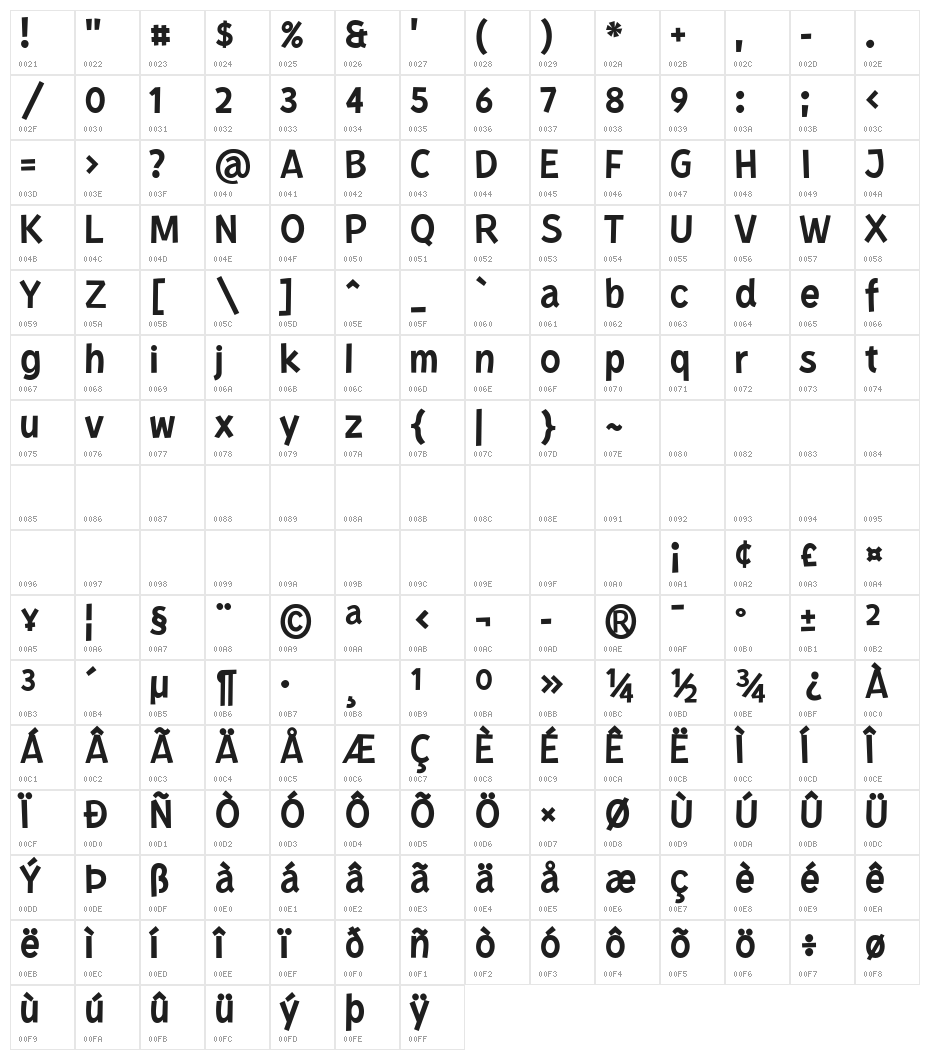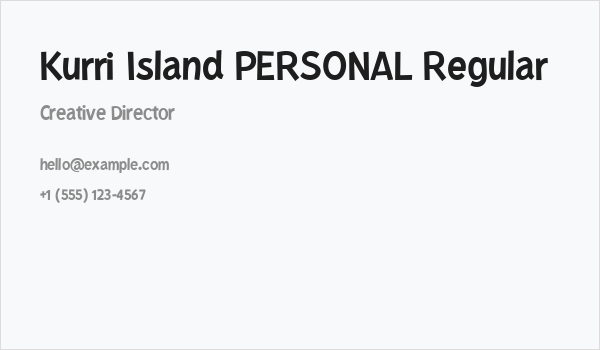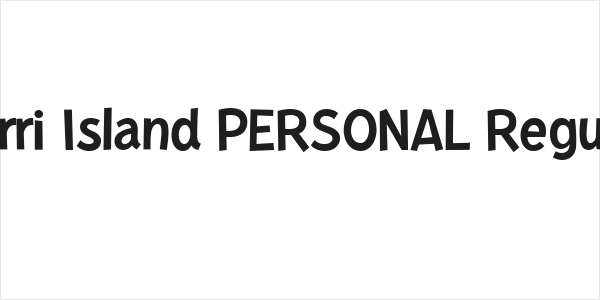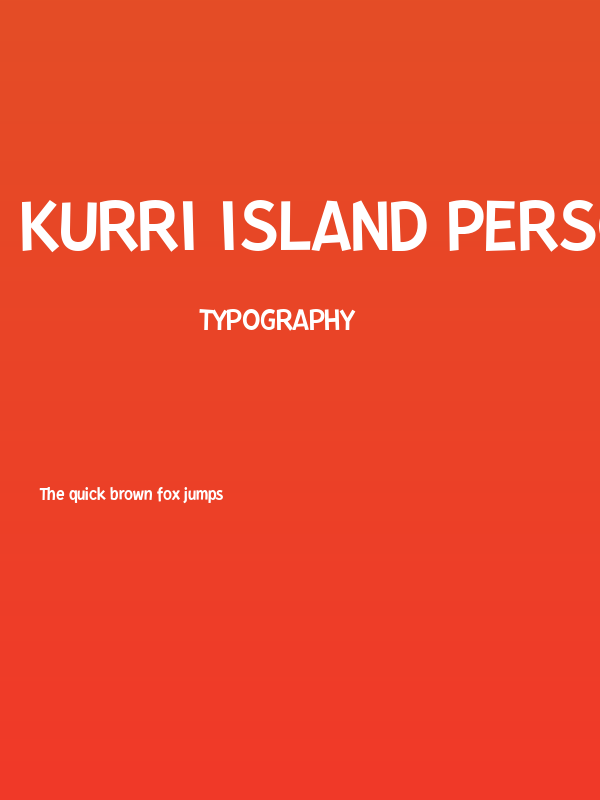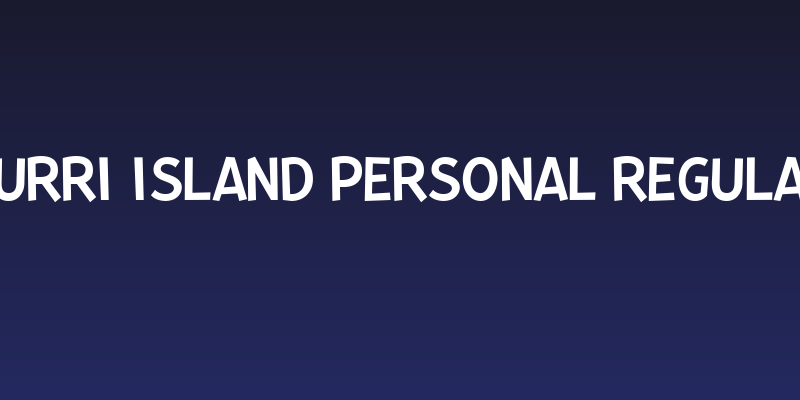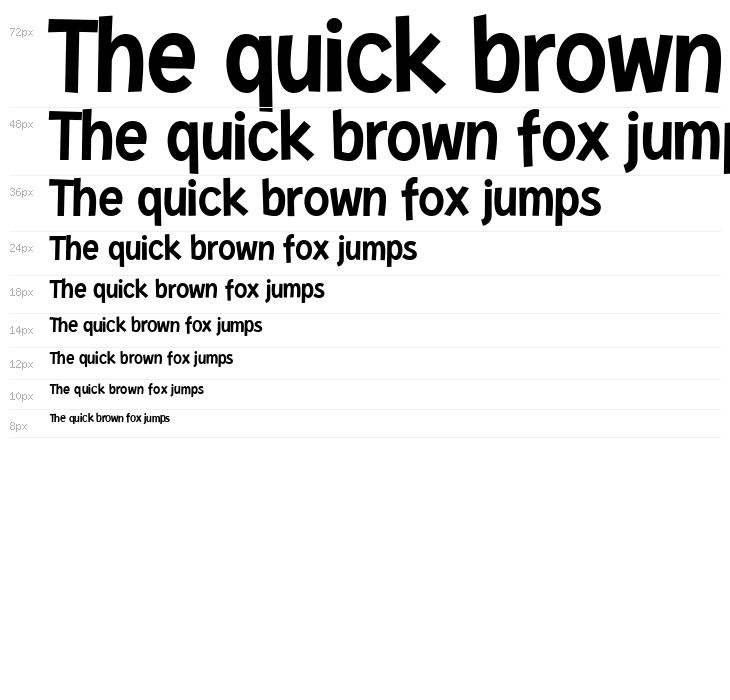
Kurri Island PERSONAL Regular Font
Kurri Island PERSONAL Regular Description
This font features a playful and slightly irregular style, characterized by its bold and rounded letterforms. The uppercase letters are tall and slightly tilted, giving a dynamic and informal appearance. The lowercase letters maintain this playful aesthetic with a consistent stroke width, adding to the font's approachable and friendly vibe. The numerals are bold and clear, ensuring readability. Special characters are designed to match the overall style, with a quirky and fun touch. This font is perfect for projects that require a casual and lively feel.
| Overall Style | Playful, Casual |
| Proposed Projects | Ideal for children's books, playful branding, casual invitations, and creative posters. |